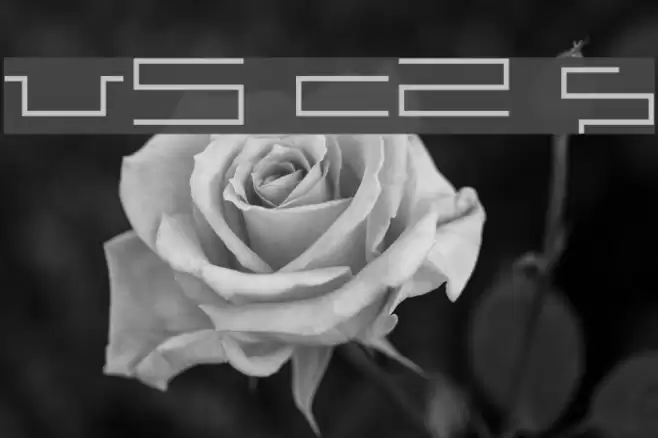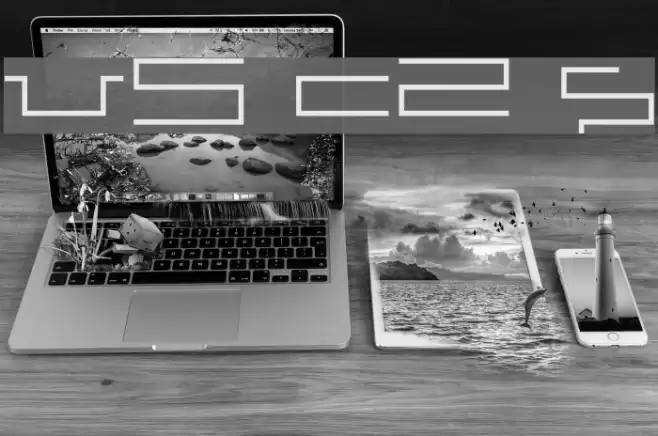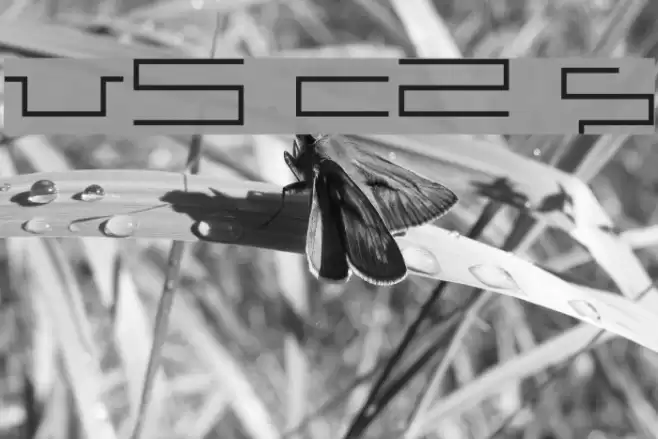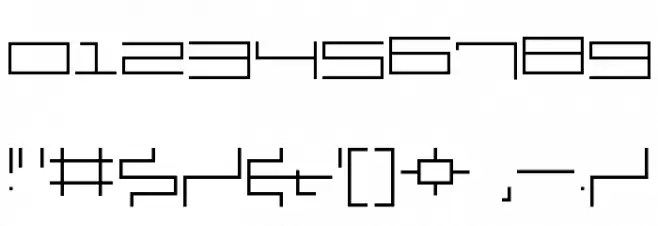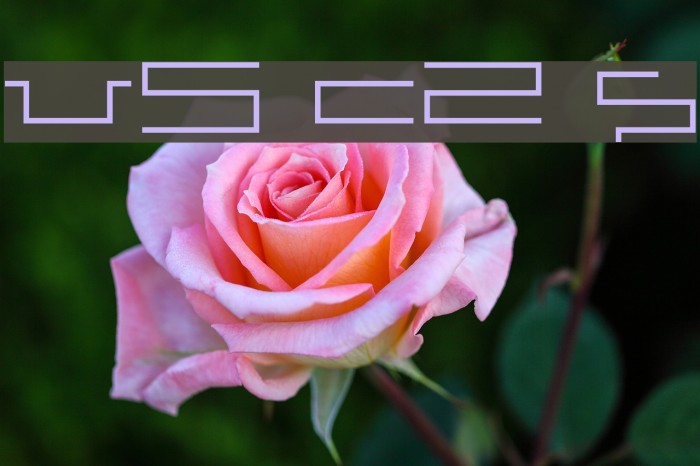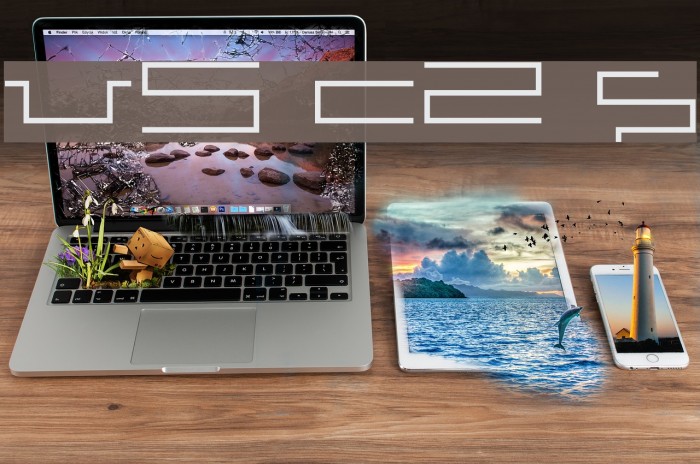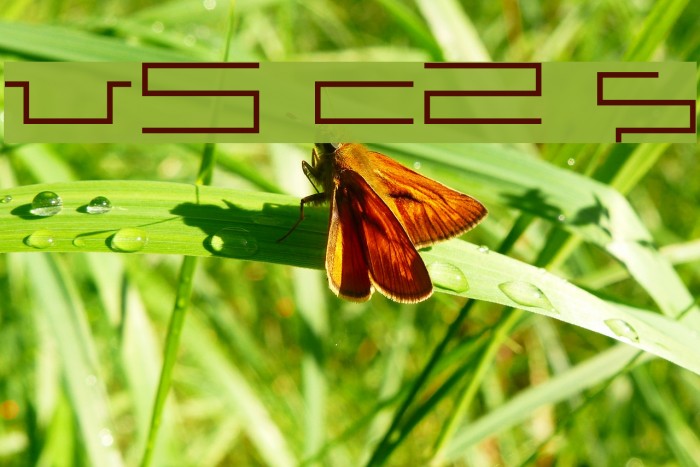
V5 Cuadra2 Slim Font
V5 Cuadra2 Slim Description
This font features a geometric, grid-like structure with a distinct modular appearance. Each character is composed of straight lines and right angles, giving it a digital, futuristic feel. The design is consistent across both uppercase and lowercase letters, as well as numbers and special characters, maintaining a uniform aesthetic. The font's minimalist style is accentuated by its thin strokes and lack of curves, making it ideal for modern and tech-oriented projects. Its unique structure makes it stand out, while still being legible and functional.
A geometric, modular font with a digital, futuristic aesthetic from Pixel fonts.
- Proposed Projects: Ideal for tech branding, digital interfaces, modern posters, and futuristic designs.
- Use Case: Logos, Headlines, Digital interfaces